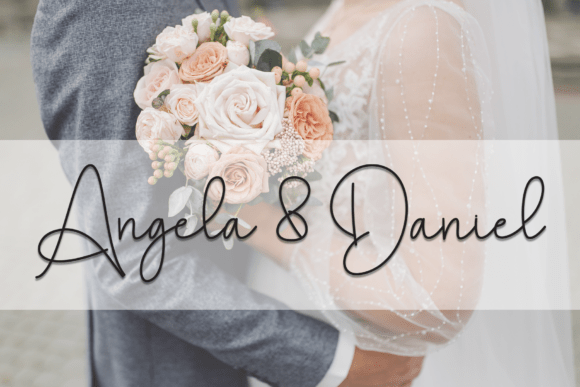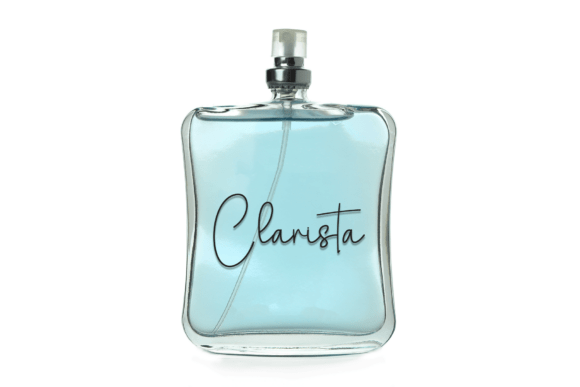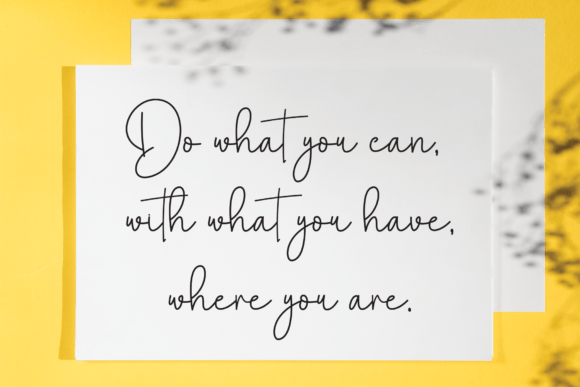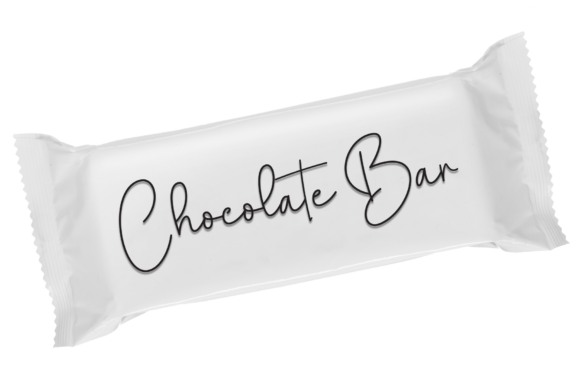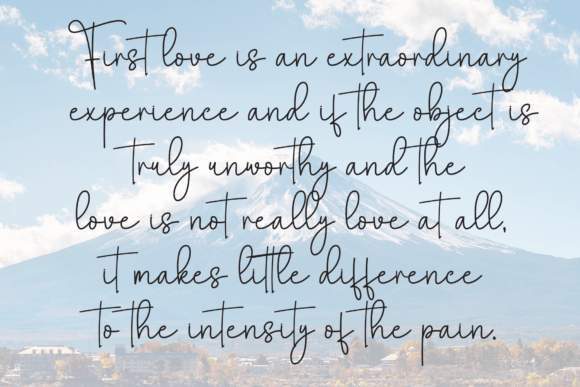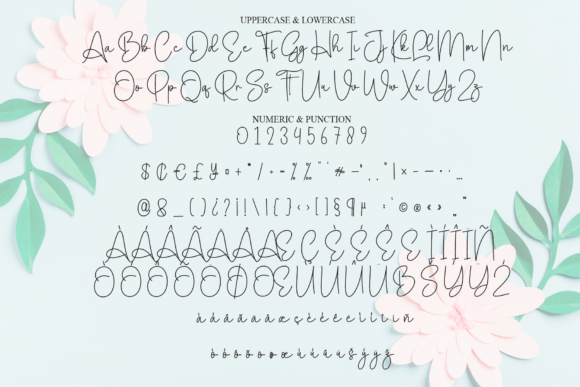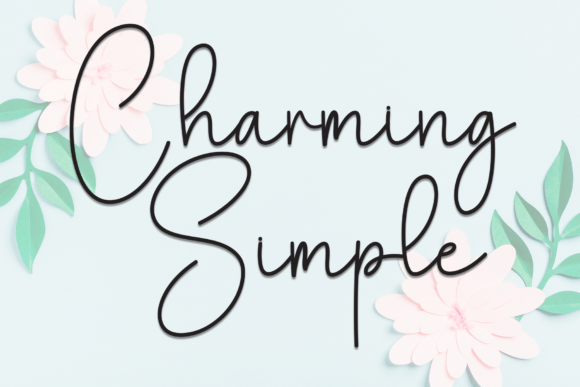
Discover the Timeless Charm of Charming Simple Font
In the world of typography, few fonts manage to convey elegance and expressiveness as effortlessly as the Charming Simple Font. This beautiful script font has captured the hearts of designers and crafters alike with its graceful curves, smooth connections, and sophisticated, handwritten feel. Whether you’re working on a wedding invitation, logo, branding project, or social media graphic, this enchanting font is sure to bring a touch of timeless charm to your design.
The Beauty of Elegant Script
The Charming Simple Font boasts an elegant script style that exudes refinement and poise. Its fluid strokes and seamless connections create a sense of movement and harmony, making it perfect for designs that require a touch of sophistication. With its classic and timeless appeal, this font is an excellent choice for designers looking to add a sense of luxury and glamour to their work.
One of the most significant advantages of the Charming Simple Font is its versatility. Its adaptability makes it suitable for a wide range of design applications, from romantic and whimsical to refined and corporate. Here are just a few examples of how you can use this stunning font in your designs:
- Wedding Invitations: Add a touch of romance and elegance to your wedding invitations with the Charming Simple Font. Its beautiful script style and sophisticated feel make it perfect for formal and informal wedding designs.
- Logos and Branding: Create a lasting impression with a logo that features the Charming Simple Font. Its unique and memorable style will help your brand stand out and establish a strong visual identity.
- Social Media Graphics: Elevate your social media graphics with the Charming Simple Font. Whether you’re designing a Facebook post, Instagram story, or Twitter header, this font will add a touch of sophistication and style to your content.
Why Designers and Crafters Love Charming Simple Font
So, what makes the Charming Simple Font so popular among designers and crafters? Here are just a few reasons why this font has become a favorite:
- Ease of Use: The Charming Simple Font is incredibly easy to use, even for those with limited design experience. Its clean and simple style makes it easy to pair with other fonts and design elements.
- High Versatility: As mentioned earlier, the Charming Simple Font is highly versatile and can be used in a wide range of design applications.
- Timeless Appeal: Unlike trendy fonts that quickly go out of style, the Charming Simple Font has a timeless appeal that ensures your designs will remain elegant and sophisticated for years to come.
Tips for Using Charming Simple Font
To get the most out of the Charming Simple Font, here are a few tips to keep in mind:
- Pair with Complementary Fonts: Experiment with pairing the Charming Simple Font with complementary fonts to create visual interest and hierarchy in your design.
- Use for Headings and Titles: The Charming Simple Font is perfect for headings and titles, where its elegant style can make a lasting impression.
- Experiment with Colors and Textures: Don’t be afraid to experiment with different colors and textures to add depth and visual interest to your design.
In conclusion, the Charming Simple Font is a beautiful and elegant script font that brings a touch of timeless charm to any design. Its versatility, ease of use, and timeless appeal make it a favorite among designers and crafters. Whether you’re working on a wedding invitation, logo, branding project, or social media graphic, this enchanting font is sure to elevate your design and leave a lasting impression.